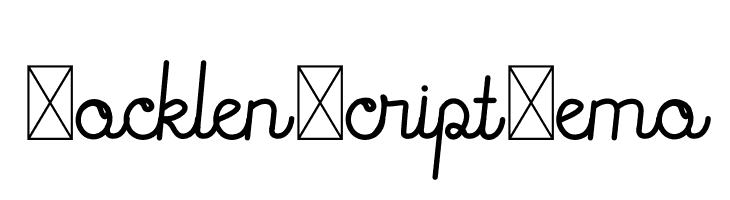
A flowing, handwritten script font with a casual elegance.
A playful, handwritten font with smooth, flowing lines and a casual style.
A playful and elegant handwritten script font with smooth curves.
A playful and elegant script font with flowing cursive letters.
A whimsical script font with curly, looping letterforms and decorative flourishes.
A playful and elegant script font with flowing, cursive letterforms.
A playful, whimsical script font with flowing, interconnected letters.
A playful, elegant cursive script font with flowing, connected characters.